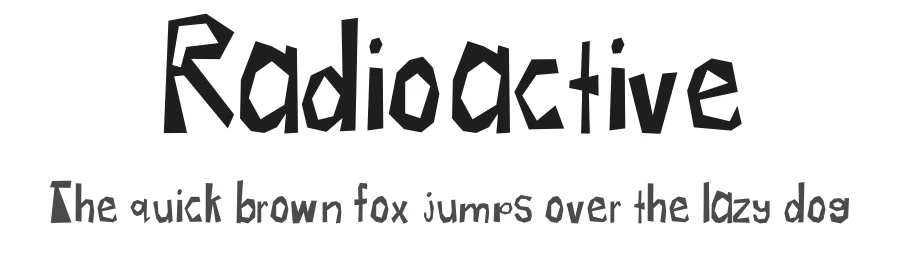
About MTF Jumpin' Jack Font
| Designer | Miss Tiina - Tina Raparanta |
MTF Jumpin' Jack Font is a decorative font that shines as a display or heading face. Pair it with a clean sans-serif or serif font for body text β the contrast creates a clear hierarchy while the two styles stay balanced and easy to read.